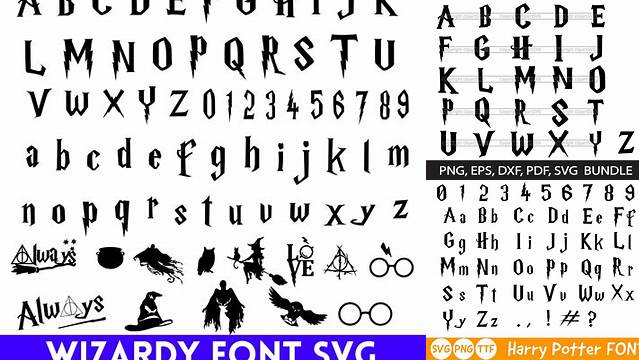
Harry Potter Font SVG: Free Download For Magic Designs
Are you a Harry Potter fanatic looking to add a magical touch to your projects? Look no further! The Harry Potter font, with its distinct and enchanting style, is perfect for creating everything from personalized invitations to fan-made merchandise. In this article, we’ll explore where you can find free SVG downloads of the Harry Potter font and how to use them to conjure up some spellbinding designs.
What is the Harry Potter Font?
The Harry Potter font, often referred to as Harry P, isn't just a single typeface but rather a collection of fonts that capture the essence of the Harry Potter series. The most recognizable is the one used in the book titles and movie logos, which has a whimsical yet slightly gothic feel. This font evokes the magical world J.K. Rowling created, making it a popular choice for fans worldwide. The unique lettering is what sets it apart, with its irregular lines and quirky serifs adding to its charm. When people talk about the Harry Potter font, they usually refer to variations that mimic this iconic style. For designers and fans alike, having access to this font opens up a world of creative possibilities, allowing them to bring a piece of the wizarding world into their own projects.
The Appeal of Using Harry Potter Font
Using the Harry Potter font can instantly inject a sense of magic and nostalgia into any project. Its distinctive style grabs attention and resonates with fans of the series. Whether you're designing invitations for a themed party, creating personalized gifts, or adding flair to your website, the Harry Potter font adds a unique touch. The font's whimsical and slightly gothic aesthetic is versatile enough to suit various creative endeavors. Imagine crafting a birthday banner with the Harry P font, instantly transforming a regular celebration into a magical event. The font also works wonders for social media graphics, merchandise designs, and even educational materials, engaging audiences with its familiar and beloved appearance. The appeal lies in its ability to transport viewers to the enchanting world of Harry Potter, evoking feelings of wonder and excitement. The Harry Potter font is more than just a typeface; it’s a gateway to a world of imagination and adventure.
Tips for Effective Use
To maximize the impact of the Harry Potter font in your projects, consider these tips. Use the font sparingly; it’s most effective when used for headings or short phrases, as its ornate style can be overwhelming for large blocks of text. Pair it with simpler, more legible fonts for body text to ensure readability. Experiment with colors that complement the magical theme, such as gold, deep reds, and dark blues. Add visual elements like stars, wands, or silhouettes of iconic Harry Potter characters to enhance the overall design. Consider the context of your project; the Harry P font is perfect for themed parties, fan-made merchandise, and personalized gifts. Ensure your design software is up-to-date to avoid compatibility issues with the font. Test the font on different devices and screen sizes to ensure it displays correctly. By following these tips, you can effectively use the Harry Potter font to create captivating and memorable designs that resonate with fans of the wizarding world.
What is the Harry Potter font called?
The font is often referred to as "Harry P" or similar variations. It's a fan-made typeface inspired by the Harry Potter book and movie logos.